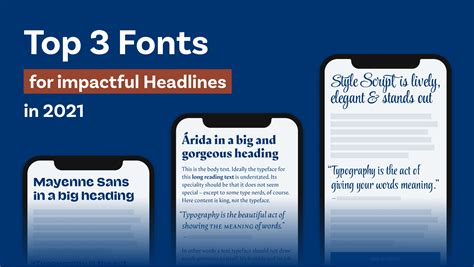
Headline Fonts: Your Guide To Impactful Typography
Headline Fonts: Your Guide to Impactful Typography
Hey guys, let’s dive into the awesome world of headline fonts ! Ever scrolled through a magazine, a website, or even a billboard and been instantly drawn in by the big, bold text? That’s the power of a great headline font at play! Essentially, a headline font is a typeface specifically chosen to grab attention and convey the main message of a piece of content. Think of it as the welcoming committee for your article, your product, or your brand – it needs to be inviting, clear, and impactful. Unlike body text fonts, which are designed for readability over long stretches, headline fonts prioritize immediate impact and visual appeal . They need to stand out, make a statement, and entice the reader to dive deeper. The right headline font can make or break the first impression your content makes. It’s not just about choosing pretty letters; it’s about strategic design that communicates tone, personality, and importance. Whether you’re designing a poster, writing a blog post, or crafting an advertisement, understanding headline fonts is a game-changer. We’re talking about fonts that are often bolder, larger, and more distinctive than the text that follows. They might be classic and elegant, modern and minimalist, or quirky and playful, depending on the message you want to send. So, stick around as we explore what makes a font a great headline font, why they matter so much, and how you can pick the perfect one for your next project. Get ready to make your headlines pop!
Why Headline Fonts Are Super Important, Guys!
Alright, let’s get real for a second. Headline fonts aren’t just some fancy design choice; they’re crucial for effective communication. In a world flooded with information, you’ve got mere seconds to capture someone’s attention. This is where your headline and, by extension, your headline font, comes into play. It’s the first thing people see, and it needs to do a lot of heavy lifting. A compelling headline, paired with an appropriately chosen font, can dramatically increase engagement. Think about it: a boring, small font on a huge poster? It’ll likely get ignored. But a large, eye-catching font that perfectly matches the vibe of the event or product? That’s what draws people in. They act as visual signposts, guiding the reader’s eye and signaling the importance of the text. Furthermore, headline fonts are huge in establishing brand identity. Consistent use of specific headline fonts across all your marketing materials – websites, brochures, social media – creates a recognizable and professional look. It builds trust and familiarity with your audience. It’s like your brand’s unique voice, but in visual form. Different font styles evoke different emotions and associations. A strong, sans-serif font might convey authority and modernity, while a flowing script font could suggest elegance and tradition. Choosing the right font allows you to set the tone before anyone even reads a single word. It’s a powerful psychological tool. Moreover, in terms of web design and SEO, the readability of your headline is paramount. Search engines want to provide users with clear and accessible content. While font choice itself isn’t a direct ranking factor, the impact and readability it provides can influence user behavior (like bounce rate and time on page), which are important signals. So, in short, headline fonts are vital for grabbing attention, conveying messages, building brands, setting tones, and even indirectly influencing user experience and search visibility. They’re the unsung heroes of design!
Types of Headline Fonts You Need to Know
Now that we know why they’re so important, let’s break down the types of headline fonts you’ll encounter. Understanding these categories will help you make more informed decisions for your projects. We’re generally looking at a few major families, each with its own distinct personality and best-use cases.
First up, we have Serif fonts . These are the classic guys, characterized by small decorative strokes, called serifs, attached to the end of the main strokes of letters. Think of fonts like Times New Roman, Georgia, or Garamond. They often convey a sense of tradition, authority, trustworthiness, and sophistication. For headlines, serif fonts can work wonders when you want to evoke a feeling of established credibility, like in a news publication, a law firm’s branding, or a historical piece. They have a certain gravitas that can make a headline feel important and well-respected. However, be mindful; some serif fonts can feel a bit dated if not used thoughtfully, so pick ones with strong character.
Next, let’s talk about Sans-Serif fonts . As the name suggests, these are fonts without serifs – no little feet on the letters! Examples include Arial, Helvetica, Open Sans, and Roboto. Sans-serifs are known for their clean, modern, and minimalist aesthetic. They often convey a sense of simplicity, efficiency, and approachability. For headlines, sans-serifs are incredibly versatile and are a go-to for many modern websites, tech companies, and minimalist designs. They are generally very legible, even at large sizes, and create a contemporary feel. They’re great for making a headline look sharp and direct.
Then we have Display fonts , also known as Slab Serif or Decorative fonts . This is where things get really interesting and creative! Display fonts are designed for impact and aren’t typically meant for long-form reading. They are highly stylized and can range from bold slab serifs (think Rockwell or Courier New) with thick, block-like serifs, to ornate scripts, handwritten styles, or avant-garde designs. These fonts are your secret weapon when you want a headline to be the absolute star of the show. They’re perfect for posters, event invitations, book covers, or any situation where you need maximum visual flair and personality. However, use them with caution! Overdoing it can make a headline look cluttered or unprofessional. They work best when the message is short and the visual impact is the priority.
Finally, don’t forget Script fonts . These mimic handwriting or calligraphy, ranging from elegant and flowing to bold and casual. Think of fonts like Pacifico or Lobster. While often seen as more decorative, certain script fonts can work as headlines if they are clear and legible enough. They can add a personal, artistic, or elegant touch, suitable for wedding invitations, artisanal brands, or creative portfolios. Just ensure they don’t become too difficult to read at a glance, as legibility is still key for a headline.
Understanding these categories – Serif, Sans-Serif, Display, and Script – gives you a fantastic toolkit for selecting the right headline font to make your message shine!
How to Choose the Perfect Headline Font for Your Needs
Alright, deciding on the perfect headline font can feel a bit daunting, right? There are so many options! But don’t sweat it, guys. It boils down to a few key considerations that will steer you in the right direction. The goal is to find a font that not only looks good but also effectively communicates your message and resonates with your target audience. Let’s break it down.
First and foremost, consider the Tone and Personality of your content. What vibe are you going for? Are you trying to sound serious and authoritative, or fun and playful? A headline for a financial report will demand a different font than one for a children’s birthday party invitation. For serious topics, lean towards classic serifs or clean sans-serifs. For something more casual or exciting, a display font or a more stylized sans-serif might be appropriate. Always think about the emotion you want to evoke. A bold, strong sans-serif can feel modern and energetic, while a delicate script can feel romantic or luxurious. The font is doing a lot of the talking here, so make sure it’s saying the right thing.
Next up, Readability is King . No matter how cool a font looks, if people can’t easily read your headline, it’s failed its primary job. This is especially true for online content where attention spans can be short. Ensure the font is clear and legible, even at smaller sizes or when viewed on different devices. Avoid overly decorative or condensed fonts for headlines unless the design absolutely calls for it and the text is very short. Test it out! Zoom in, zoom out, view it on your phone. Can you instantly grasp what the headline says? This is non-negotiable, guys.
Then, think about your Target Audience . Who are you trying to reach? What kind of visual language do they respond to? A font that appeals to teenagers might not resonate with a more mature demographic, and vice versa. Researching your audience’s preferences and the common visual trends within their communities can be incredibly helpful. For instance, a tech startup targeting young professionals might opt for a sleek, modern sans-serif, while a vintage clothing store might use a retro-inspired serif or display font.
Consider the Context and Medium . Where will this headline be seen? A font that looks amazing on a large print poster might become unreadable on a small mobile screen. Similarly, a font that works well in a short social media post might not be suitable for a book title. Think about the overall design aesthetic of the project. Does the font complement the rest of the elements, or does it clash? Harmony is key. If your body text is a simple sans-serif, a highly decorative headline font can create a nice contrast, but ensure it doesn’t feel out of place.
Don’t forget Brand Consistency . If you have an existing brand identity, your headline font should ideally align with it. Using a consistent set of fonts across all your platforms reinforces your brand and makes it instantly recognizable. If your brand already uses a particular style of font, try to stick within that realm or choose something that complements it. This builds recognition and trust over time.
Finally, Test and Iterate . Don’t be afraid to try out a few different options. Create mockups with a couple of potential headline fonts and see which one feels the most impactful and appropriate. Get feedback from others if possible. Sometimes, what looks good to you might not have the same effect on someone else. Experimentation is part of the creative process, and it’s the best way to land on that perfect choice. So, by keeping these points in mind – tone, readability, audience, context, brand, and testing – you’ll be well-equipped to select a headline font that truly makes your message resonate!
Making Your Headlines Shine with the Right Font Choice
So there you have it, folks! We’ve journeyed through the essential world of headline fonts , understanding why they’re not just decorative flourishes but fundamental tools in effective communication. From grabbing immediate attention to setting the entire tone of your content and reinforcing brand identity, the font you choose for your headlines plays a colossal role. We’ve looked at the classic distinctions between serif and sans-serif fonts, appreciated the bold impact of display fonts, and touched upon the personal flair of script fonts. More importantly, we’ve equipped you with a practical guide to choosing the right font – considering everything from the message’s tone and the audience’s expectations to the medium it will appear on and the importance of crystal-clear readability. Remember, your headline is often the very first handshake your content offers. Making that handshake firm, confident, and memorable depends heavily on the typography you employ. Don’t underestimate the power of a well-chosen font to draw readers in, convey professionalism, and create a lasting impression. Whether you’re a seasoned designer or just starting out with your blog or social media posts, investing a little time in selecting the perfect headline font will pay dividends. It’s about clarity, impact, and telling your story in the most compelling way possible. So go forth, experiment, and let your headlines truly shine! Happy designing, everyone!